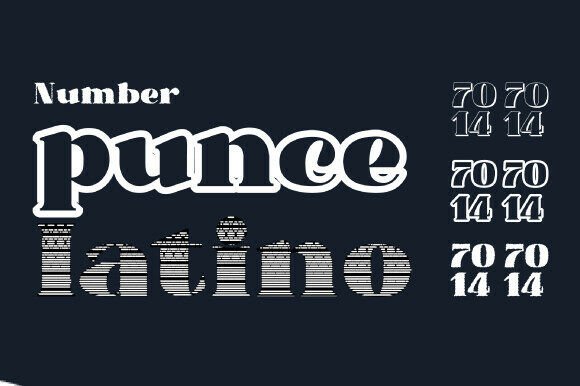
Introducing Astoria Heavy Font: The Epitome of Bold Elegance
In the realm of typography, few fonts manage to strike a balance between classic sophistication and modern boldness. However, Astoria Heavy achieves this delicate equilibrium with remarkable finesse. As a bold display serif typeface, Astoria Heavy is engineered to make a lasting impression, boasting sharp serifs, robust letterforms, and intricate details that exude confidence and luxury.
The Design Philosophy Behind Astoria Heavy
Astoria Heavy’s design is rooted in the pursuit of creating a typeface that commands attention while retaining an air of refinement. Its sharp serifs and thick letterforms lend it a dramatic flair, making it an ideal candidate for projects that require a high level of visual authority. Whether it’s for editorial headlines, premium branding, luxury packaging, or artistic posters, Astoria Heavy brings a level of sophistication that is hard to match.
Key Features of Astoria Heavy Font
- Bold Display Serif Typeface: Astoria Heavy is crafted to serve as a focal point in any design project, offering a commanding presence that draws the viewer’s eye.
- Classic Elegance with a Contemporary Edge: The typeface marries traditional serif elements with a modern boldness, making it versatile for a wide range of applications.
- Sharp Serifs and Thick Letterforms: These features contribute to its dramatic impact, ensuring that Astoria Heavy stands out in any context.
- Refined Sophistication: Despite its bold nature, the typeface maintains a level of elegance, making it suitable for luxury brands and high-end projects.
Applications of Astoria Heavy Font
Astoria Heavy’s versatility and commanding presence make it suitable for a variety of design projects, including:
- Editorial Headlines: Bring a touch of bold elegance to magazine and newspaper headlines, making your content impossible to overlook.
- Premium Branding: Elevate your brand’s visual identity with a typeface that exudes luxury and confidence.
- Luxury Packaging: Make your products stand out on crowded shelves with packaging that communicates high-end quality.
- Artistic Posters: Add a dramatic flair to your posters, ensuring they capture the audience’s attention immediately.
The Tone of Astoria Heavy
Astoria Heavy communicates with a tone that is confident, expressive, and unmistakably bold. It is a typeface that does not shy away from making a statement, ensuring that your message is delivered with the utmost authority and style.
Why Choose Astoria Heavy Font?
In a world where typography plays a crucial role in visual communication, Astoria Heavy offers a unique combination of boldness, elegance, and sophistication. Here are a few reasons why designers and crafters should consider Astoria Heavy for their projects:
- Unique Blend of Classic and Modern: Astoria Heavy offers the best of both worlds, making it a valuable addition to any designer’s toolkit.
- High Visual Authority: Its bold design ensures that your project commands attention and respect.
- Versatility: From luxury branding to artistic expressions, Astoria Heavy adapts seamlessly to various design needs.
Astoria Heavy Font stands as a testament to the power of typography in design. Its bold elegance, combined with a contemporary edge, makes it an invaluable asset for designers looking to make a statement. Whether you’re working on a luxury brand, a high-end product, or an artistic project, Astoria Heavy offers the perfect blend of sophistication and boldness to elevate your work to new heights.